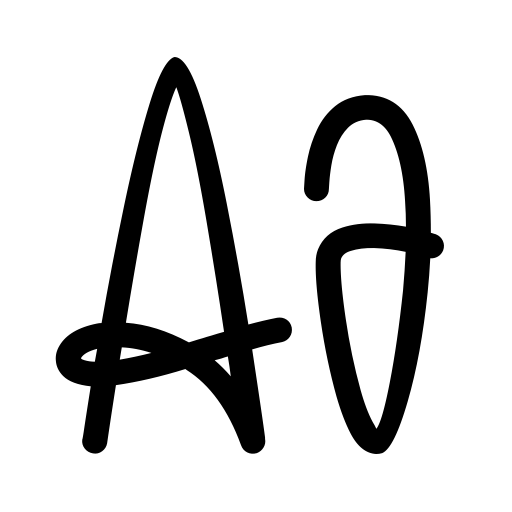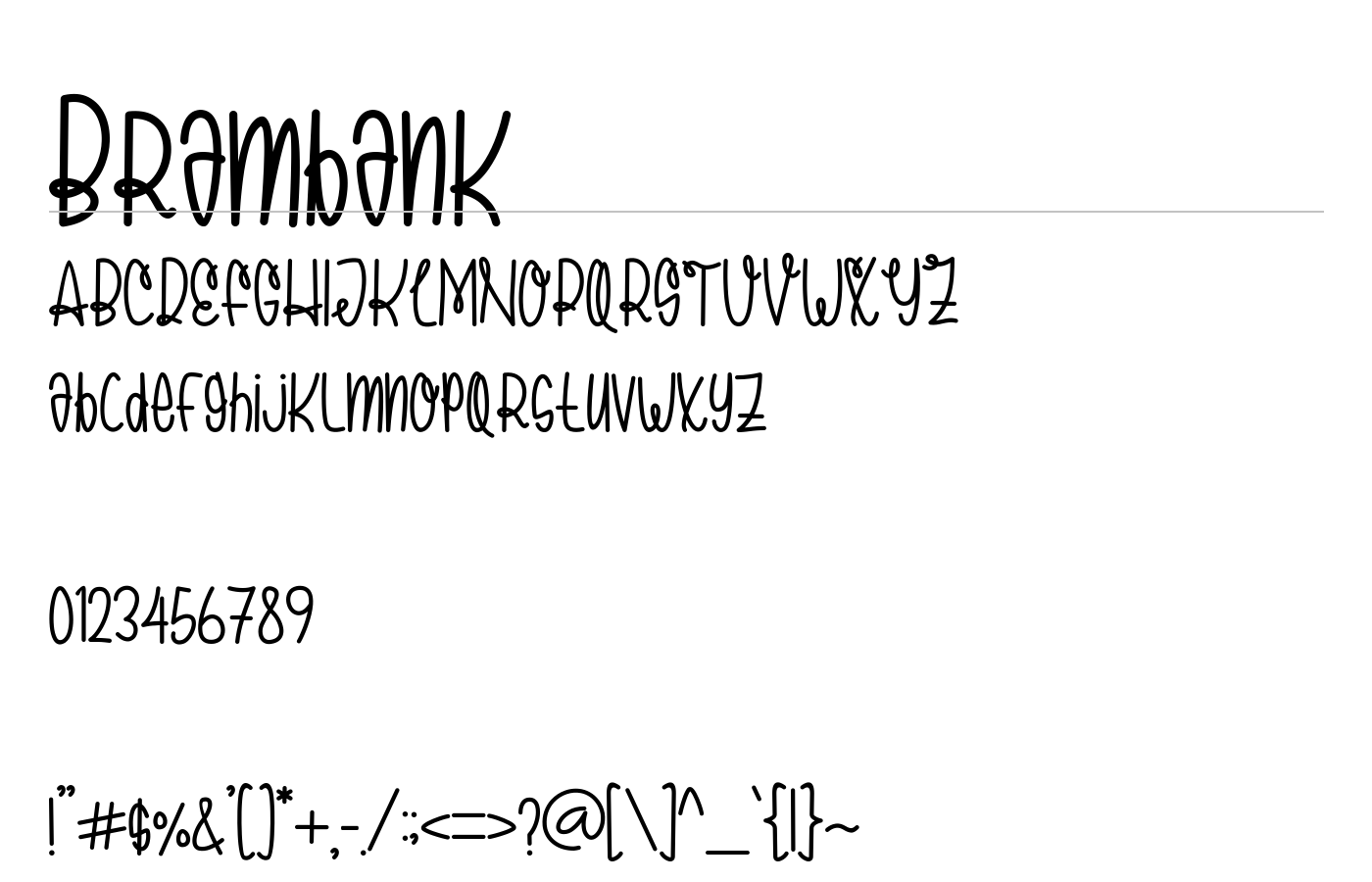
Brambank is a quirky, handwritten sans serif font with a playful and casual vibe, featuring tall, narrow letterforms and a loose, organic stroke style that gives it a friendly, informal feel. Its unique, slightly irregular characters and consistent light weight make it ideal for creative projects, children’s designs, or any context where a fun, approachable personality is desired. This font works well in logos, posters, and headlines where a distinct, whimsical touch is needed to stand out.
Brambank Font
About Brambank Font